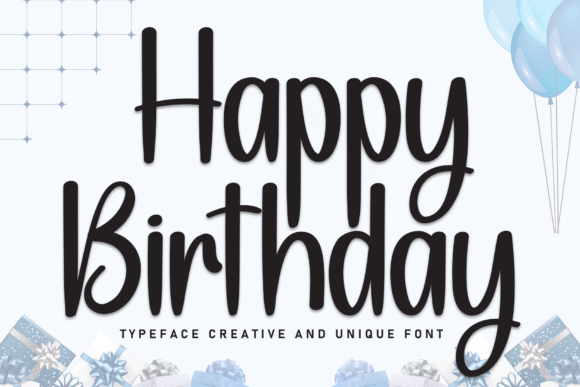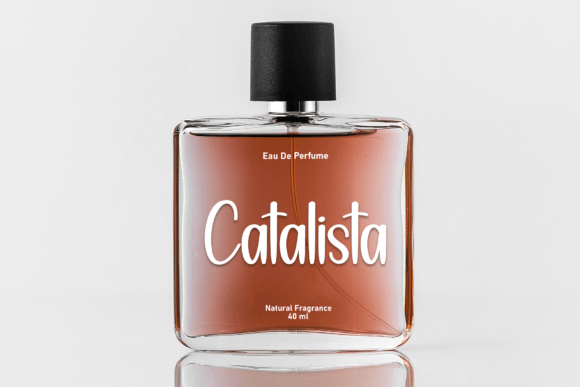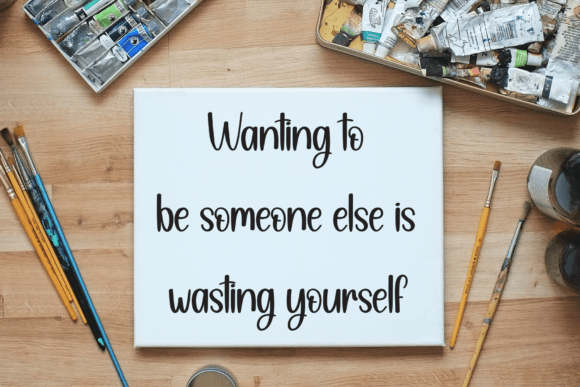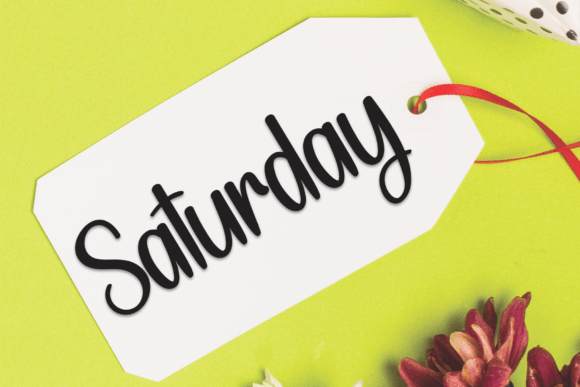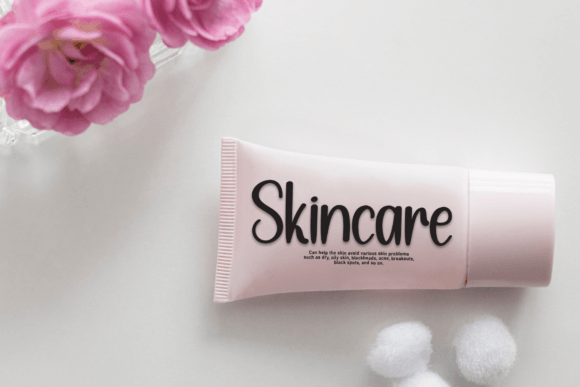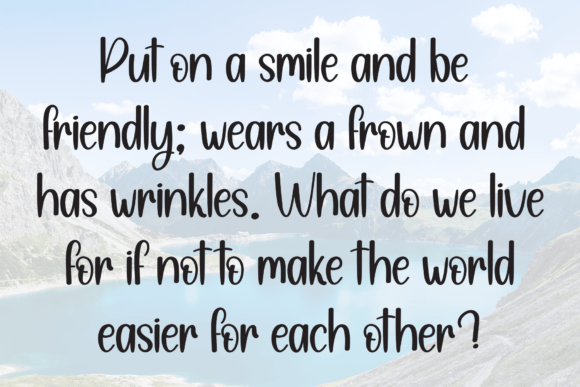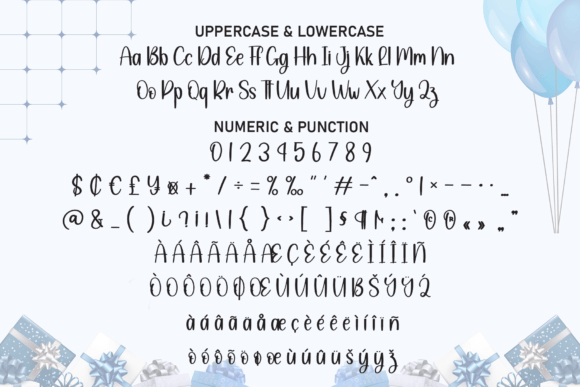
Discover the Secret to Crafting Unforgettable Designs
As a designer, have you ever struggled to find the perfect font to convey a sense of joy and celebration in your projects? Perhaps you’ve been searching for a font that exudes warmth and friendliness, one that makes your audience feel like they’re receiving a heartfelt hug in every word. If so, you’re in luck! Say hello to the Happy Birthday Font, a charmingly intimate handwritten font that’s sure to bring a smile to your face and a touch of magic to your designs.
Whether you’re working on a whimsical wedding invitation, a heartfelt birthday card, or any other creative project that demands a playful yet elegant twist, the Happy Birthday Font is the perfect addition to your toolkit. Its delightful sense of fun and adorable persona make it a go-to choice for designers who want to add a touch of personality to their typographical expressions.
Key Features of “Happy Birthday Font”
- Font Style: A playful, cursive font designed specifically for birthday celebrations.
- Unique Characteristic: Includes decorative flourishes and ornaments to add a celebratory touch to birthday messages and designs.
Happy Birthday Font Review
Happy Birthday Font is a fun and playful font that’s perfect for, you guessed it, birthday celebrations! ✨ I love how it’s designed to mimic the excitement and joy of a birthday party. The font is highly customizable, allowing you to adjust the color, size, and style to fit your design needs.
- ✨ The font is highly customizable, making it easy to adapt to different design styles.
- ✨ The playful and cheerful vibe of the font is perfect for birthday invitations, party decorations, and other celebratory materials.
- ✨ The font is relatively easy to read, even at smaller sizes.
However, there are a few limitations to consider: ⚠️ The font may not be suitable for formal or professional designs, as it’s a bit too casual. Additionally, the font’s playful nature may make it difficult to use for more serious or somber occasions.
Overall, I think Happy Birthday Font is a great addition to any designer’s toolkit. While it may have some limitations, its versatility and customizability make it a valuable asset for any design project. Just be sure to use it sparingly and in the right context to get the most out of it.
The Happy Birthday font is perfect for creating festive and celebratory designs, such as birthday invitations, party decorations, and social media graphics.